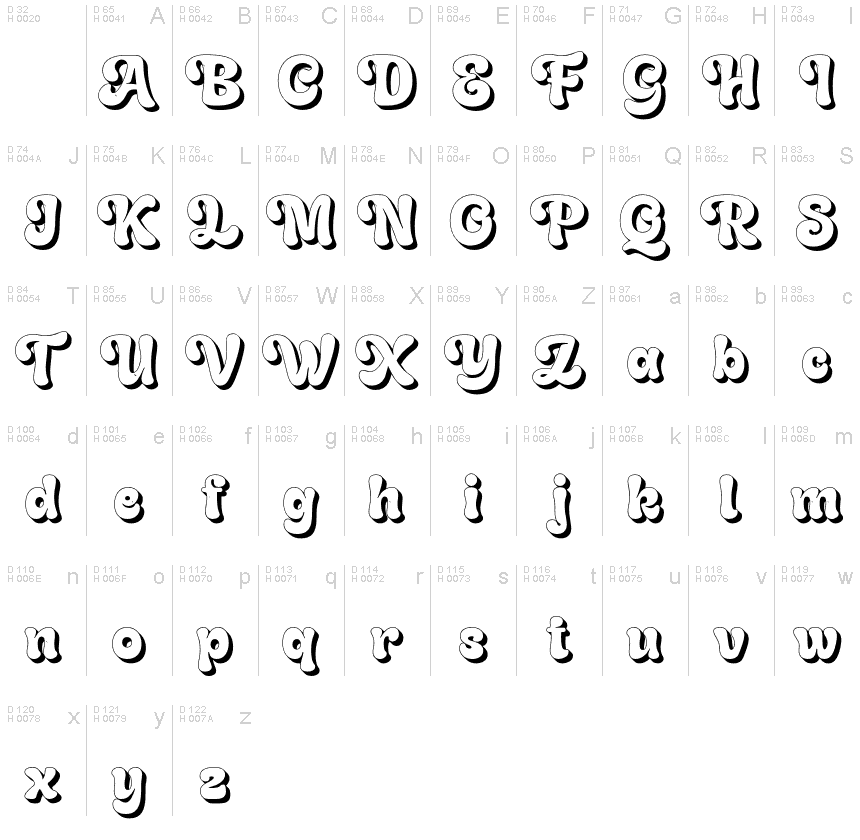
GladoliaDEMO-Shadow
Gladolia Shadow, a bold and groovy display font from Dharmas Studio, is here to elevate your design projects.
Its chunky retro style brings a touch of nostalgia and personality to any creative endeavor. With its strong and bold presence, this font is perfect for eye-catching logos, posters, album covers, or any project where you want to make a statement.
Capture the essence of the past while adding a modern twist with Gladolia Shadow.